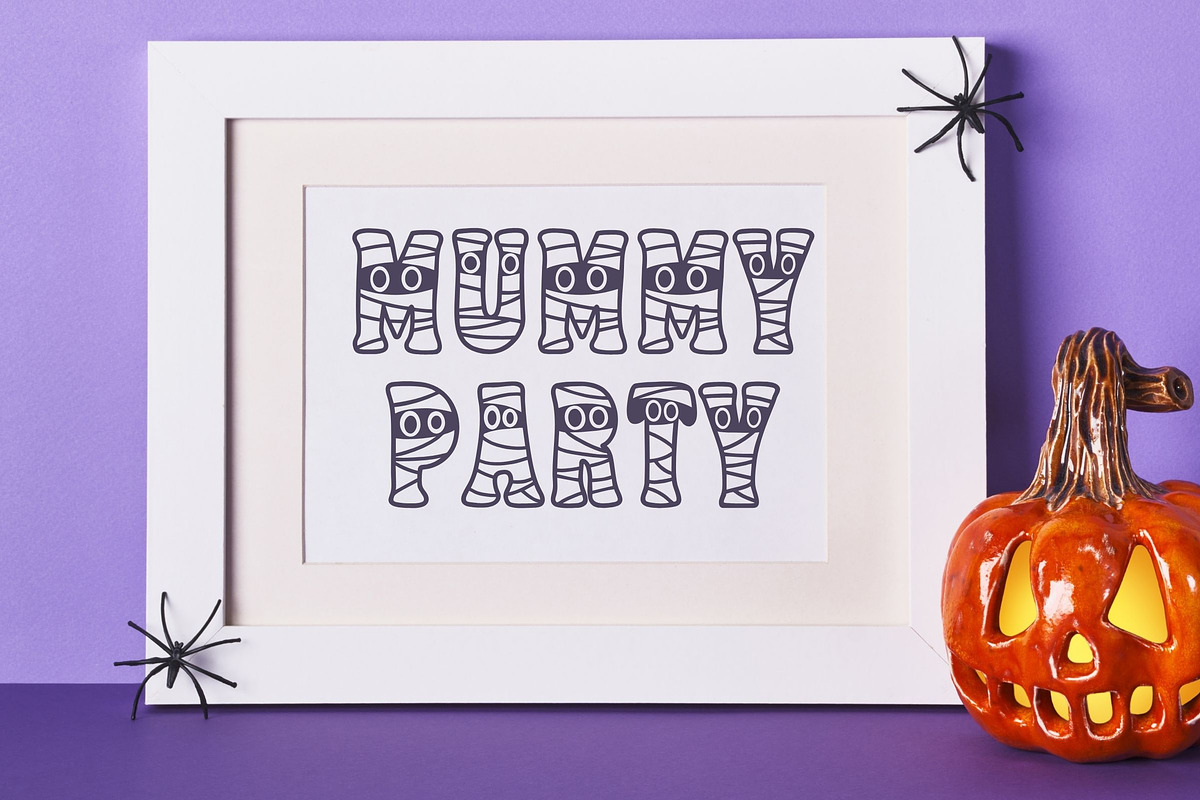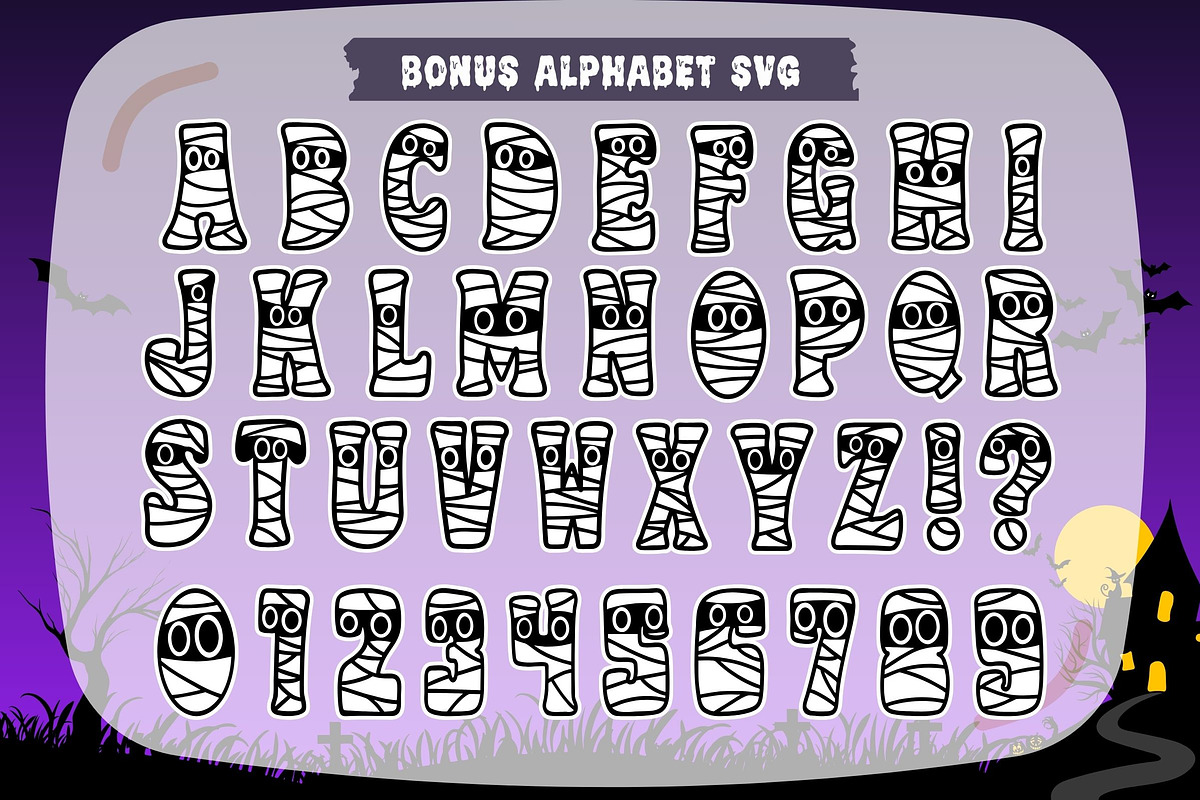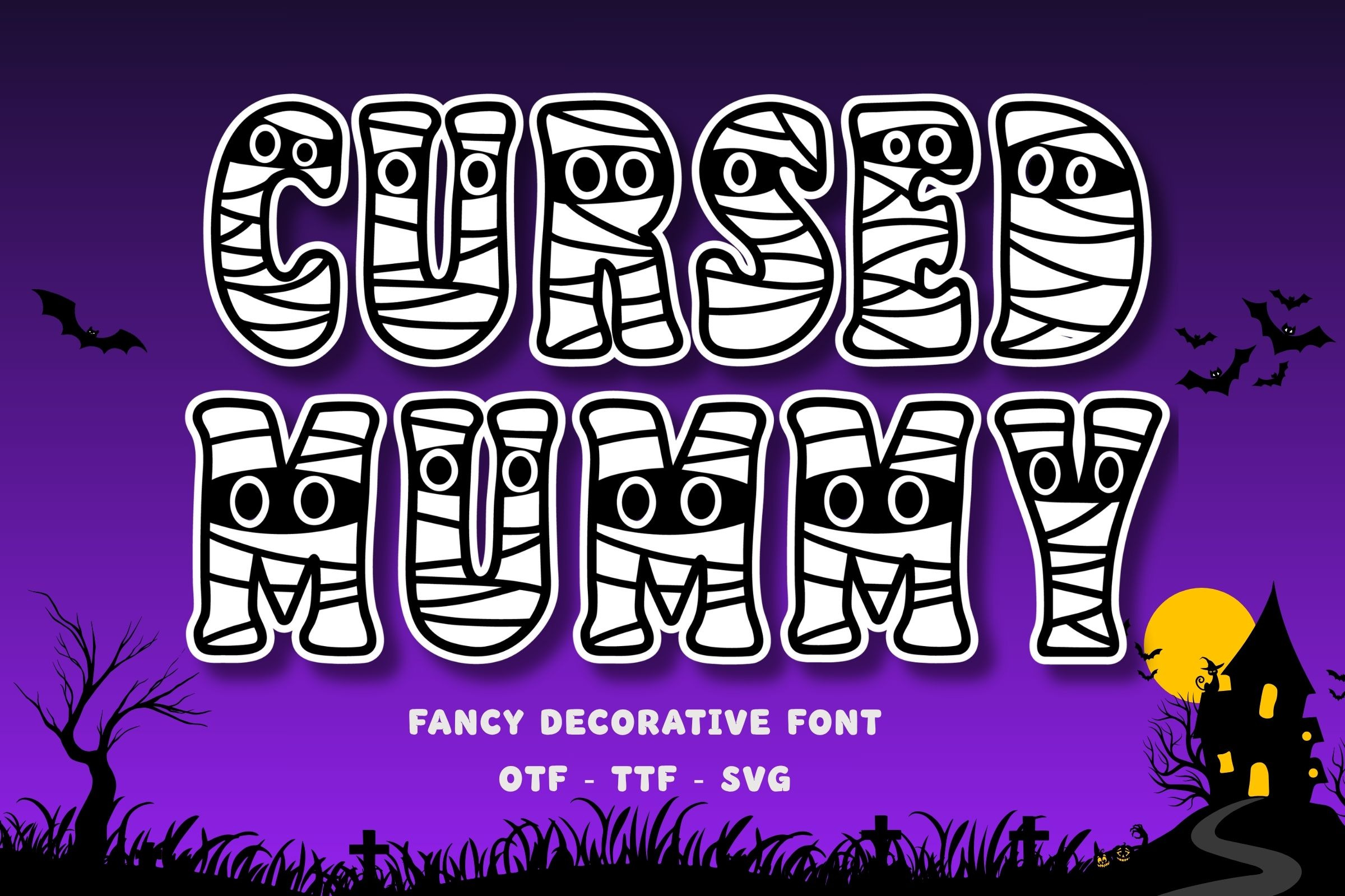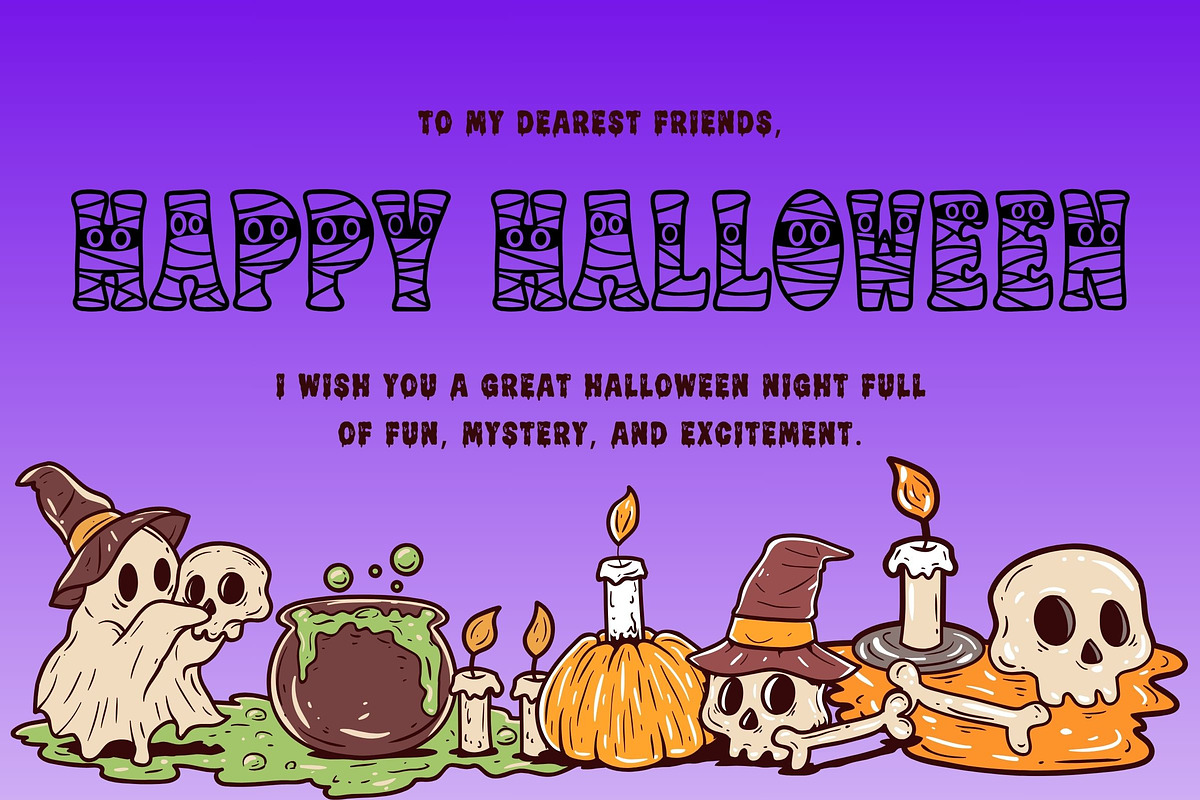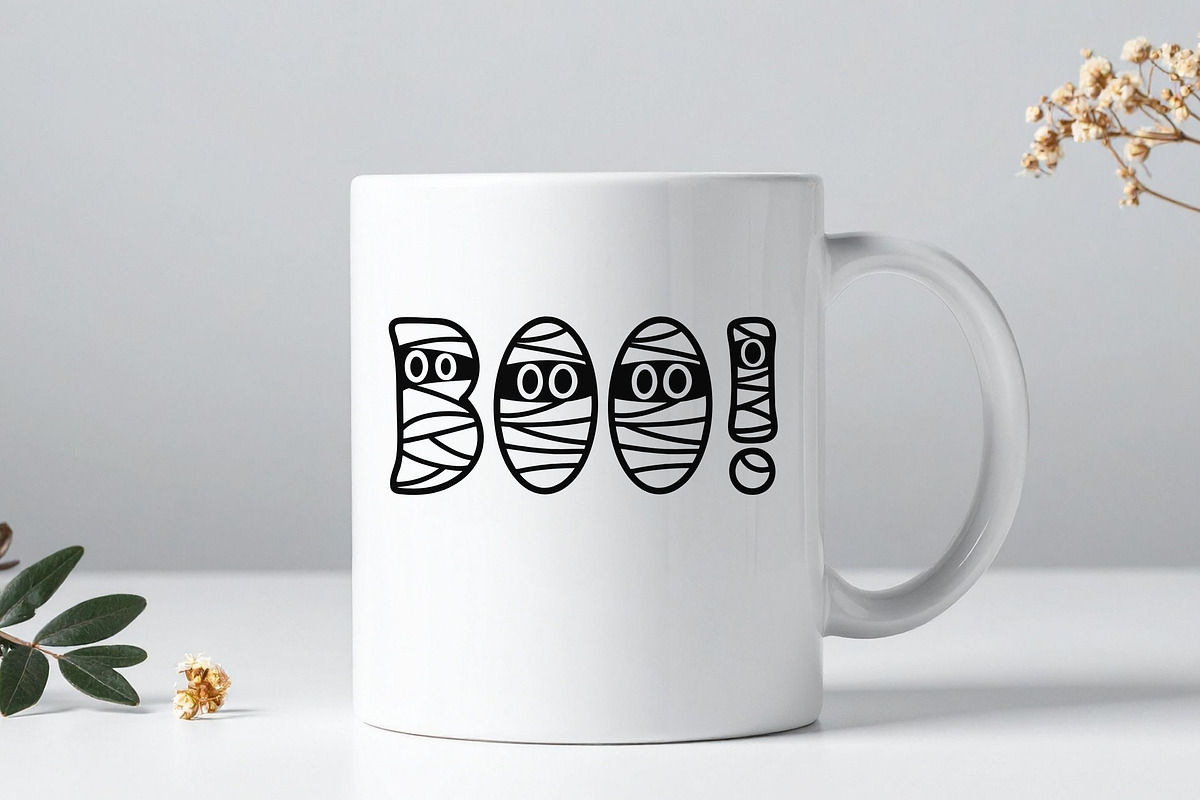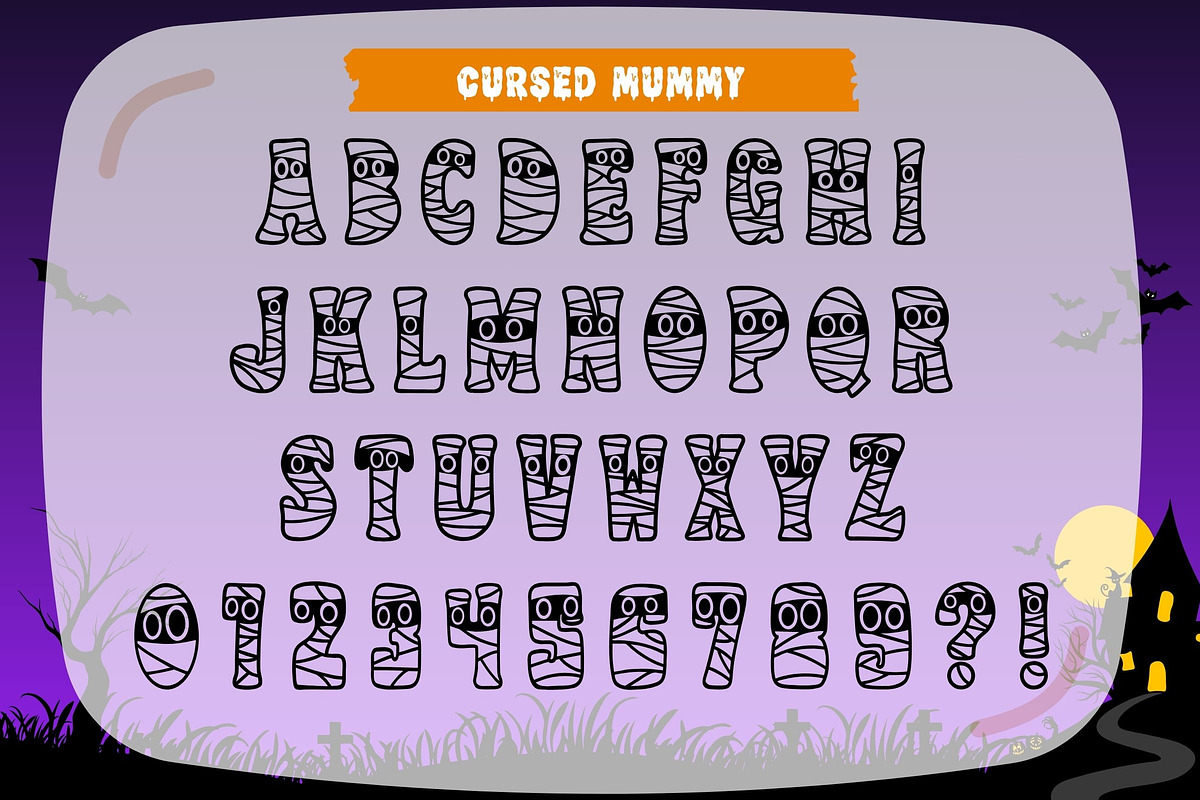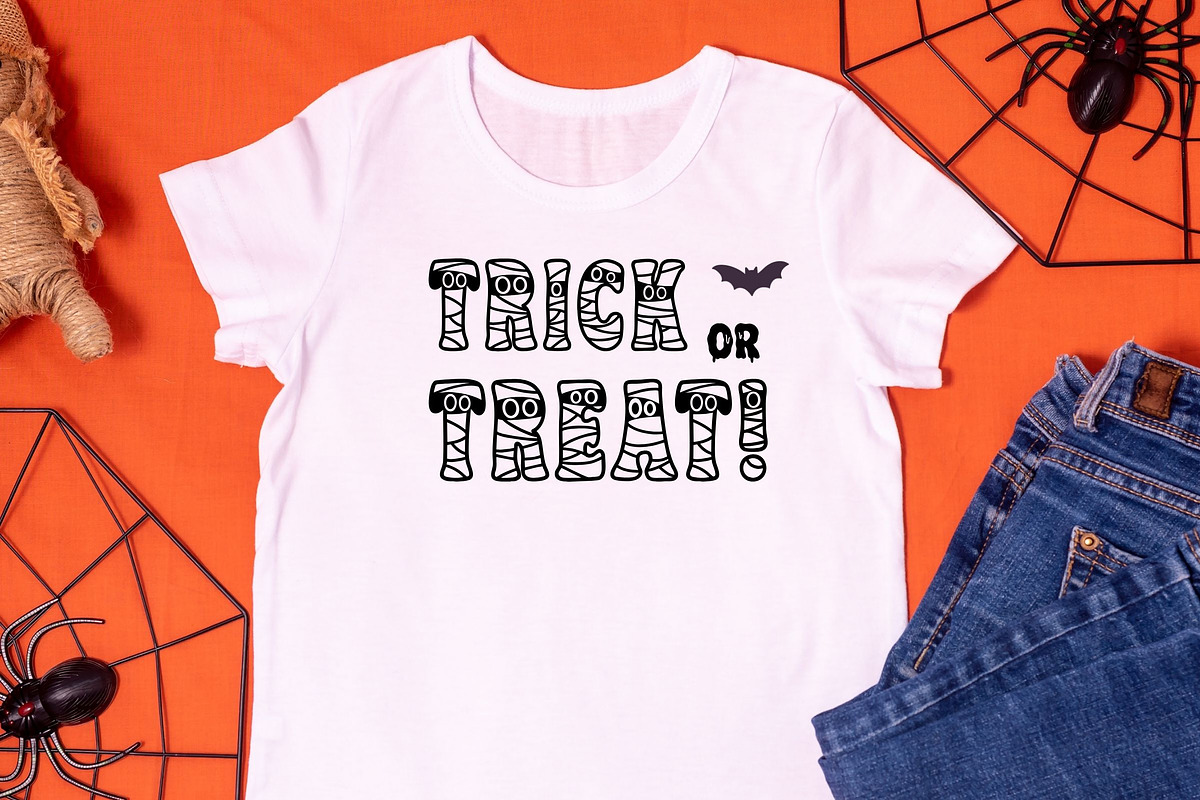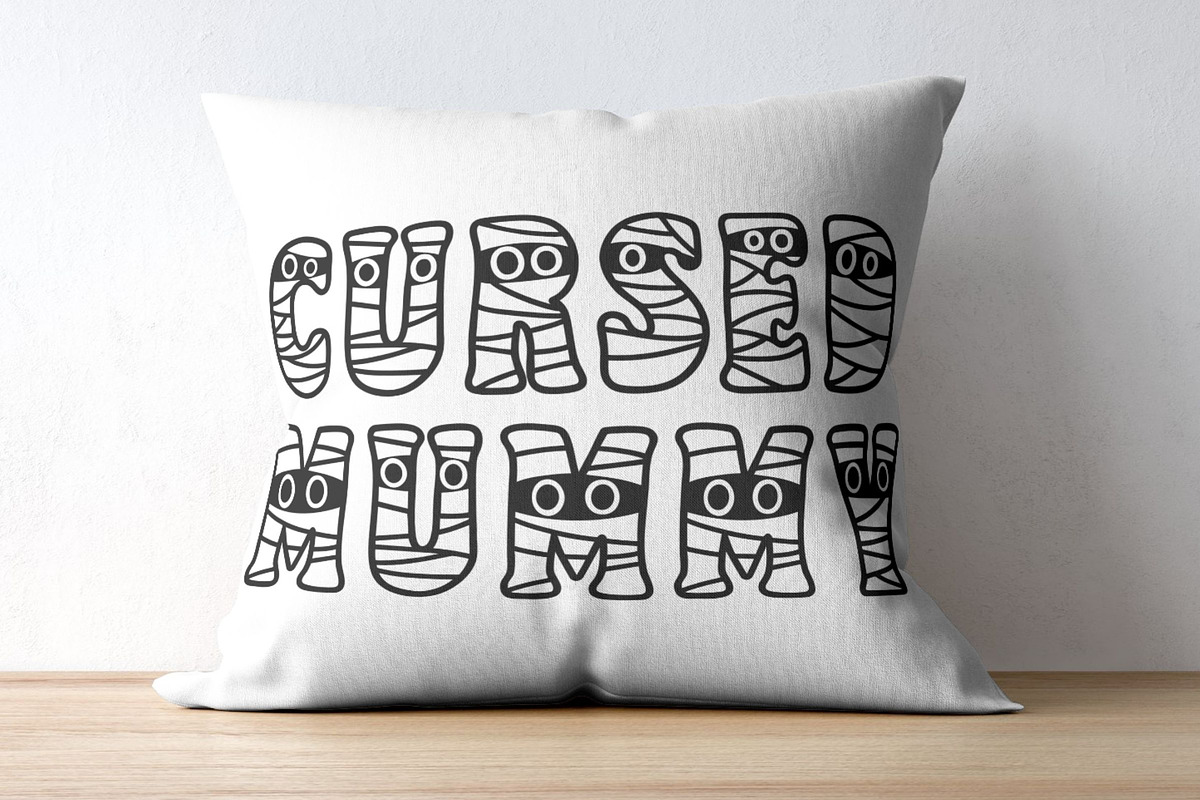
Cursed Mummy - Halloween Font
Cursed Mummy Font is a spooky-cute Halloween decorative font inspired by playful mummy wraps and glowing eyes. Each character is wrapped in bandages with charming hand-drawn lines, giving a fun and whimsical Halloween vibe. This fancy display font is perfect for Halloween projects such as t-shirt designs, mugs, party invitations, stickers, and spooky decorations.